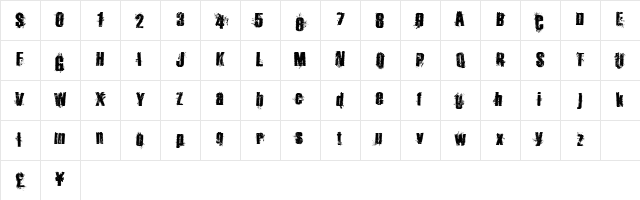
HipsterBike Regular
Foundry: Xerographer Fonts
Designer: Xerographer Fonts Max Infeld
Design Context for HipsterBike
HipsterBike is a composed and adaptable typeface that performs quietly and consistently across a wide range of design contexts.